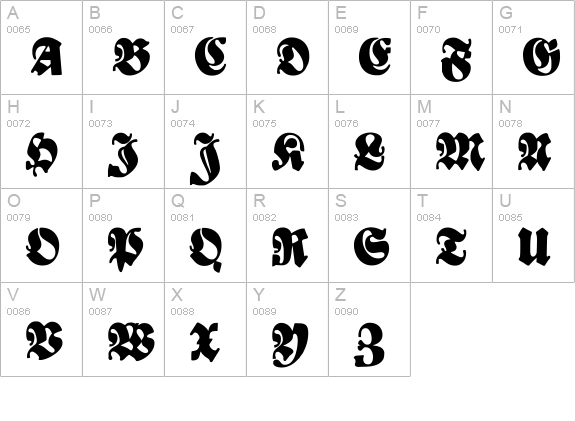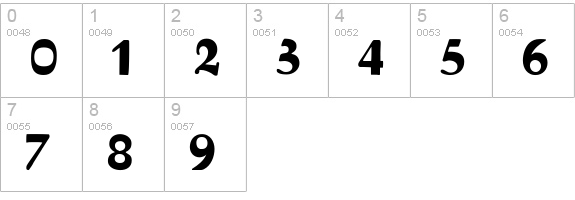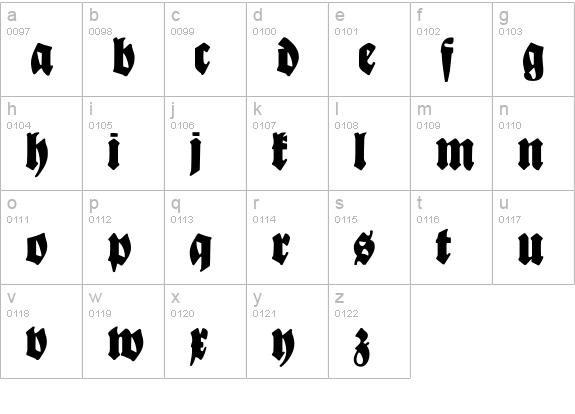
Bayreuth font is a stunning typeface that effortlessly combines elegance with modernity. Its sleek lines and graceful curves make it perfect for a variety of design projects, from branding to editorial layouts. Whether you're creating a sophisticated logo or designing a stylish magazine spread, Bayreuth font will add a touch of sophistication and refinement. This versatile font is available in a range of weights and styles, allowing you to achieve the perfect look for your project. From the bold and eye-catching Bayreuth Black to the delicate and elegant Bayreuth Light, there's a variation for every design need. One of the best things about Bayreuth font is that it is completely free to download. You can easily access this amazing typeface at FontsMarket.com, where it is freely available for all your design endeavors. With Bayreuth font, you don't have to compromise on quality or style – you can have both without spending a dime. Whether you're a professional designer or a creative hobbyist, Bayreuth font is a must-have in your font library. Its versatility, elegance, and availability make it a valuable asset for any design project. So why wait? Download Bayreuth font today and elevate your designs to new heights of sophistication and beauty. And remember, it's all for free at FontsMarket.com.